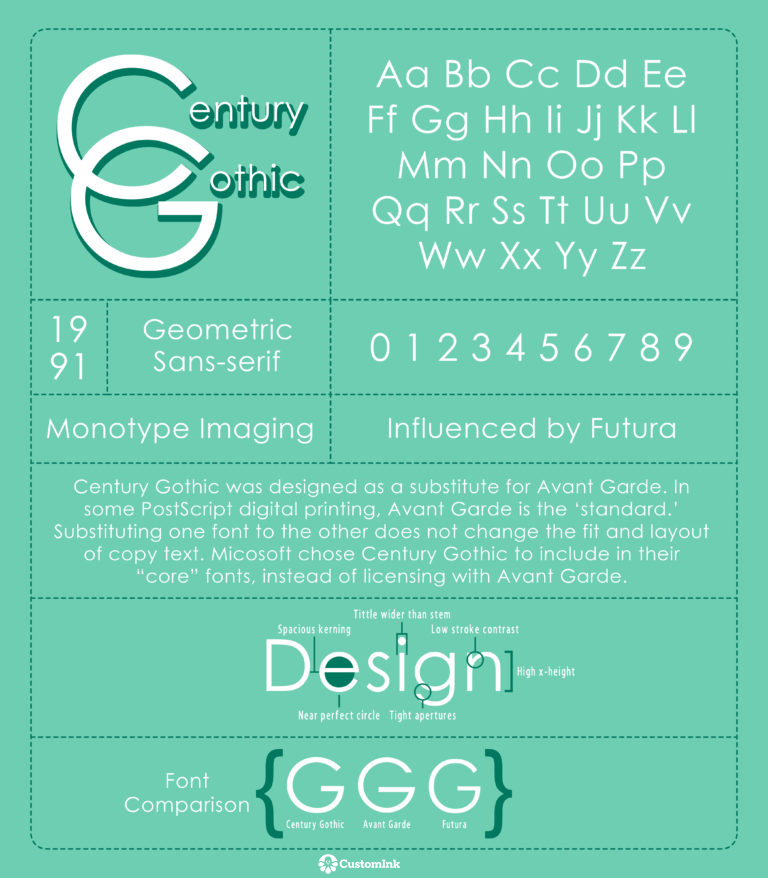
Font of the Week – Century Gothic
Century Gothic was born in 1991. This geometric sans serif (meaning a font that lacks serifs at the end of it’s strokes) was released by Monotype Imaging. Century Gothic is a call back to the International Typeface Corporation’s “Avant Garde” and is often times used as a replacement for the font created in 1970. Century Gothic is considered a “safe” font because it translates across so many different programs with ease.